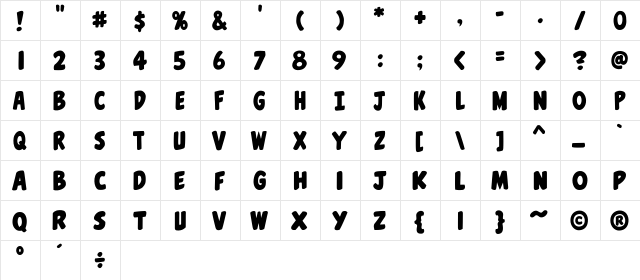
CCBellyLaugh Regular
Design Context for CCBellyLaugh Typeface
CCBellyLaugh is a composed and adaptable typeface that performs quietly and consistently across a wide range of design contexts.